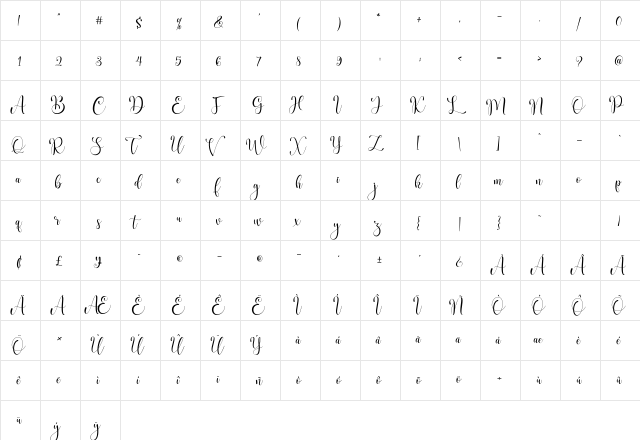
Bigola Regular
| Designer | Gilar Studio. |
Design Context for Bigola Typeface
Bigola is a composed and adaptable typeface that performs quietly and consistently across a wide range of design contexts.